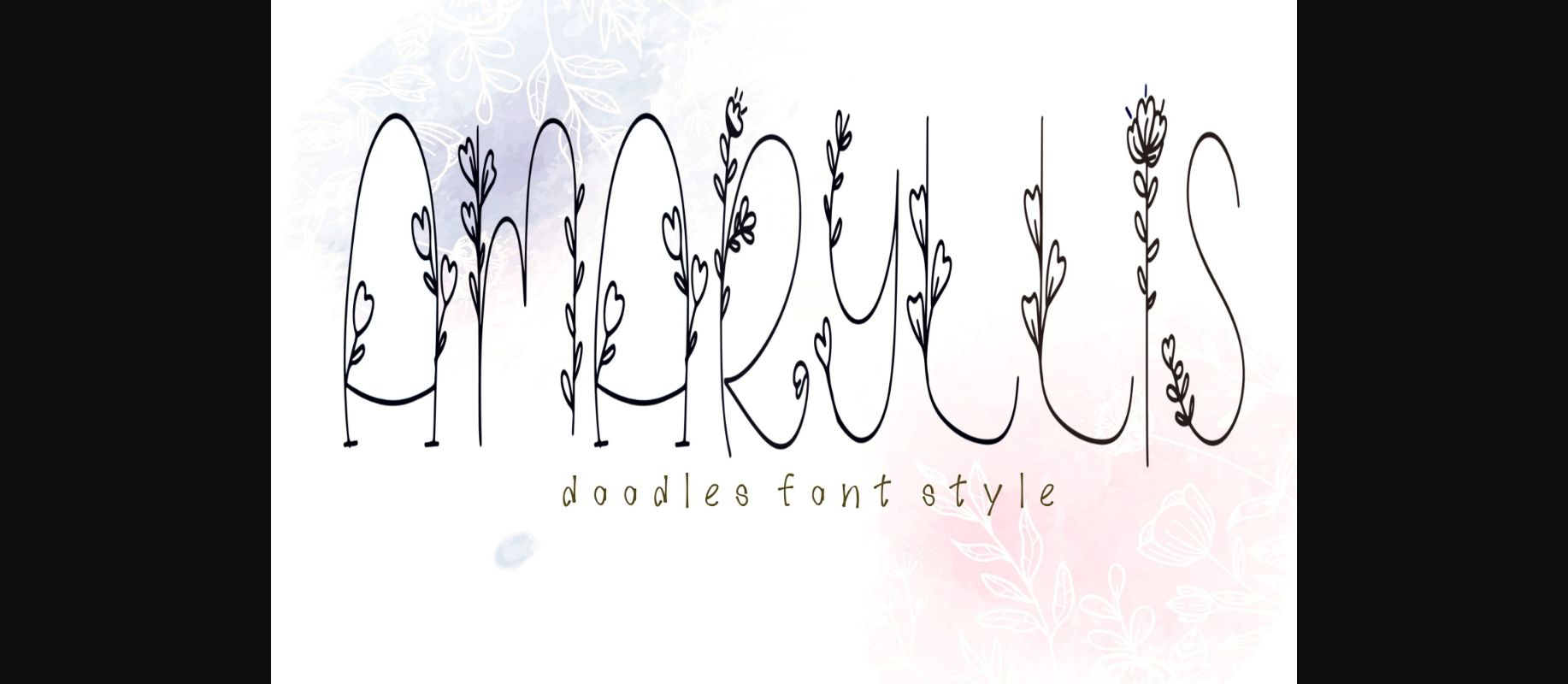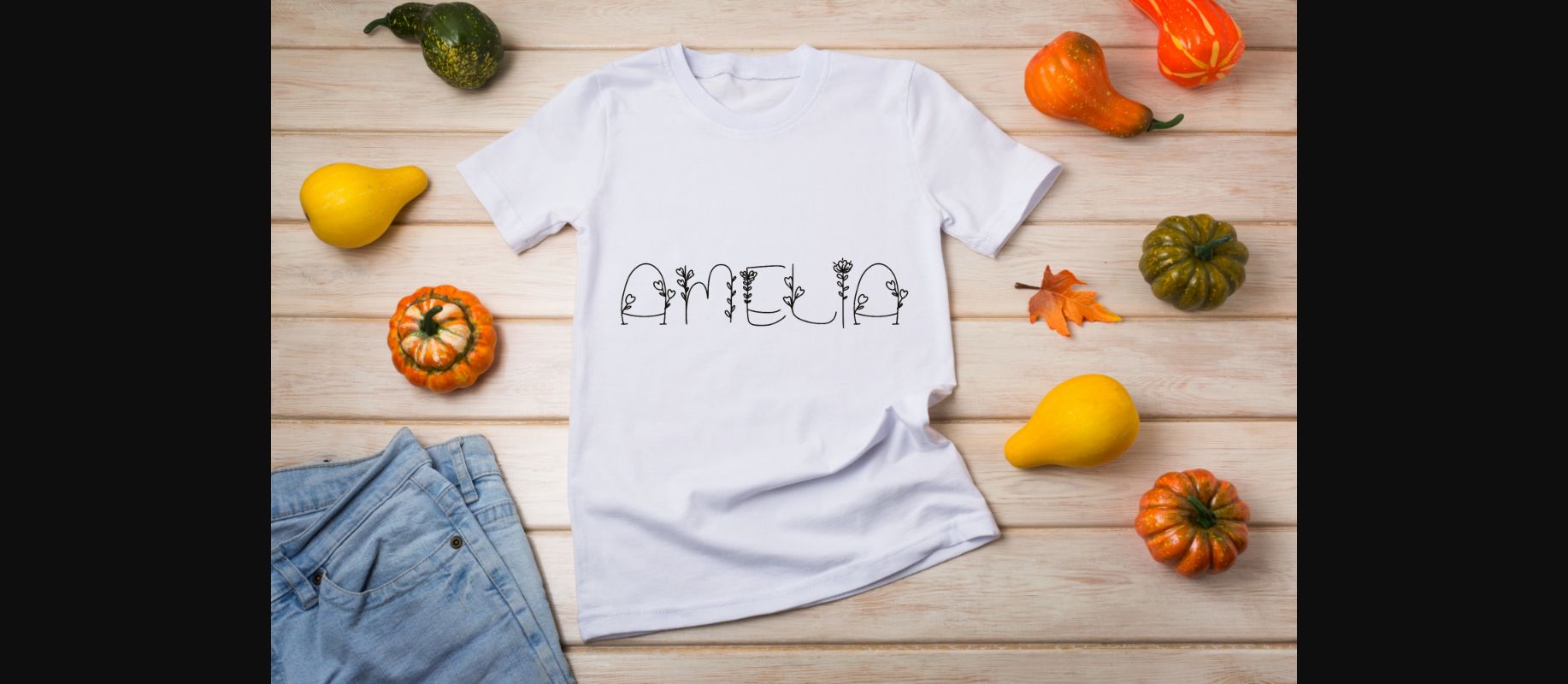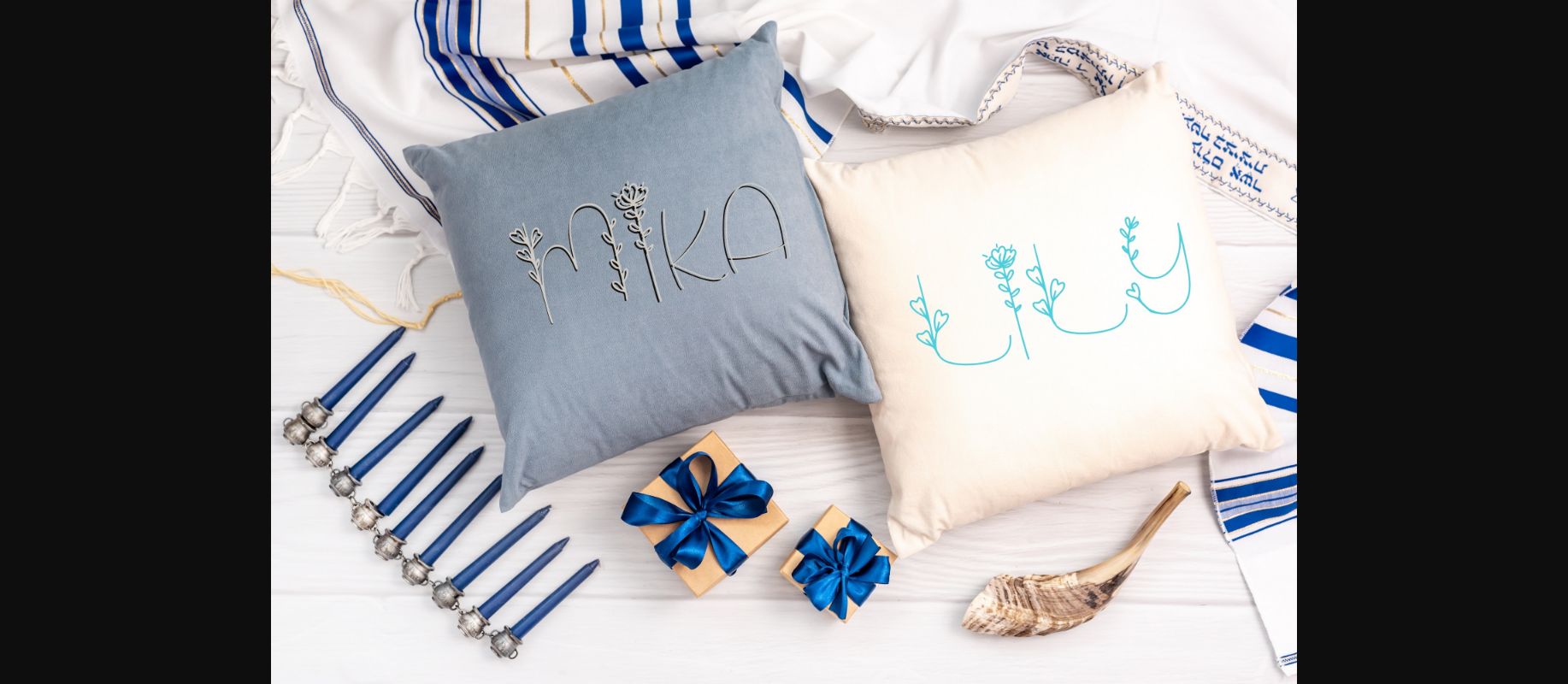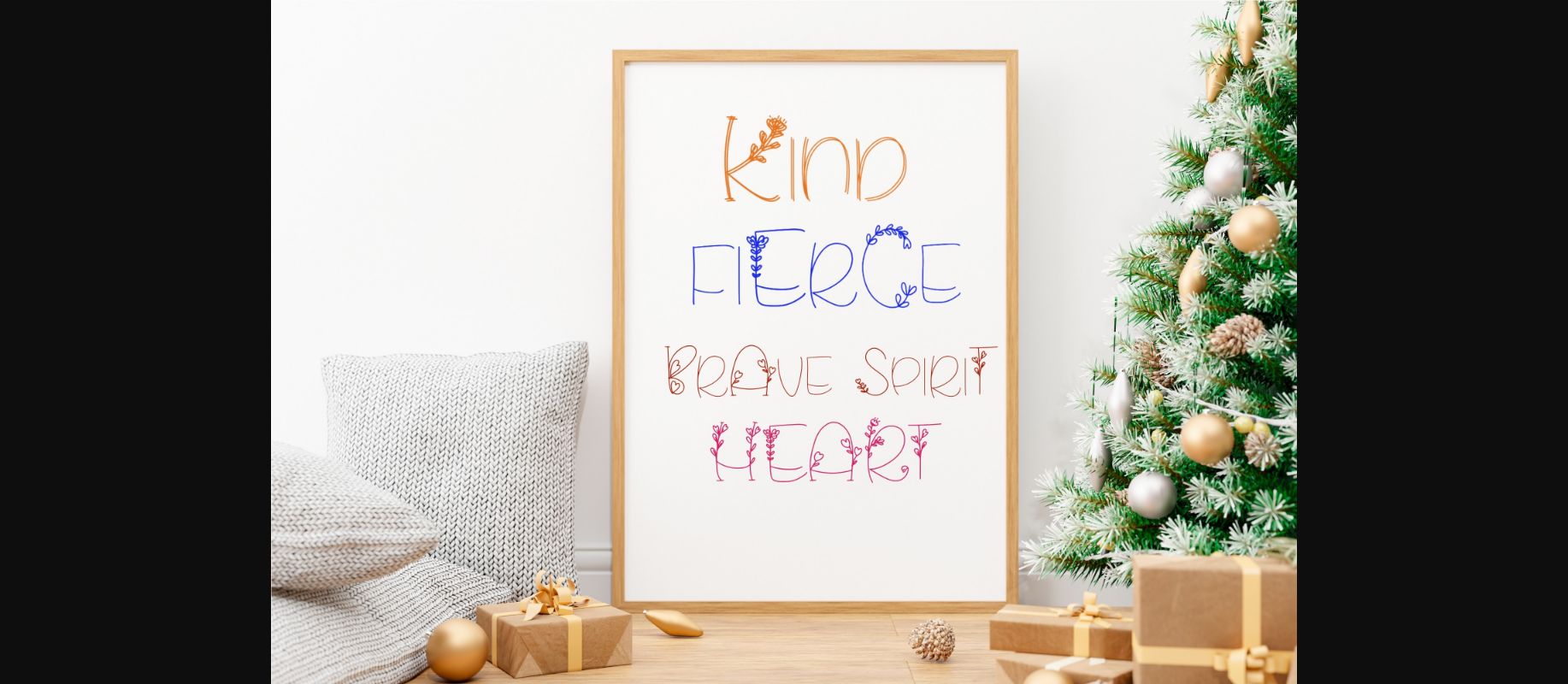
About Amaryllis Font
Amaryllis is a thin lettered decorative font. It embodies playfulness and authenticity and is the perfect choice for any children activity or school project.